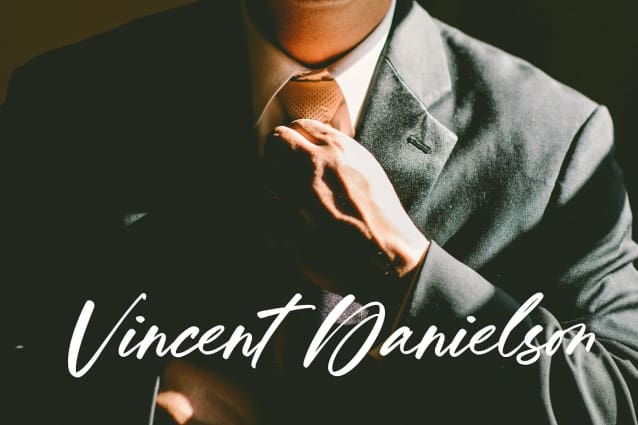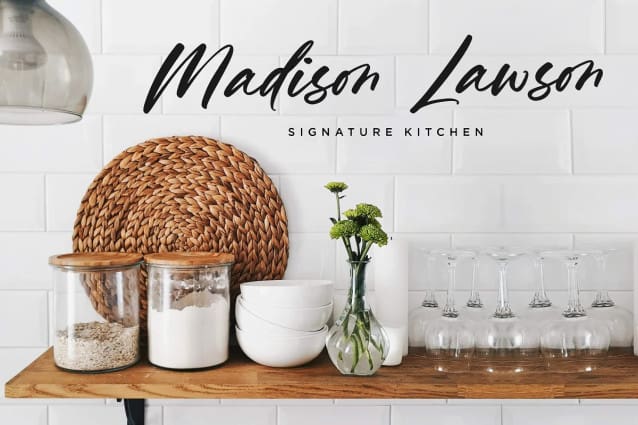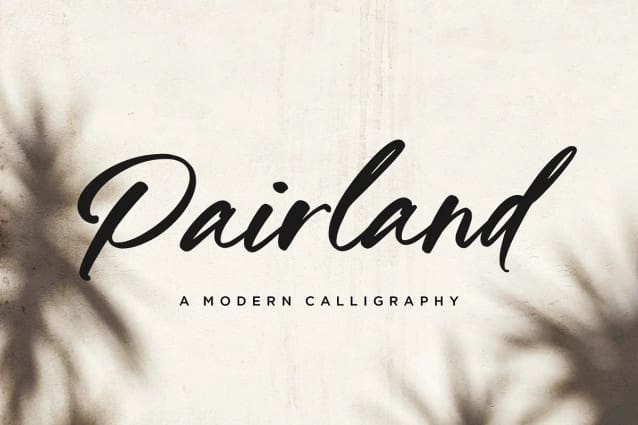
Pairland Calligraphy Font
Pairland Calligraphy Font is a Modern Calligraphy Font that’s perfect for adding a touch to your design projects! Crafted with care and attention to detail, this font is incredibly versatile and can be used for a range of design projects, including logos, branding, invitations, and more.